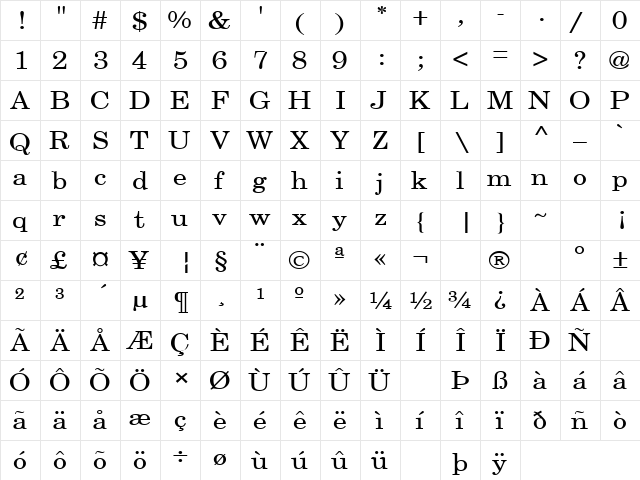
Floyd 11 Regular Font Preview
Floyd 11 Regular
Floyd 11 Regular Font Details
Design Context for Floyd 11 Typeface
Floyd 11 takes a measured approach to typography — its balanced proportions and neutral character make it a reliable workhorse for both digital and print work.